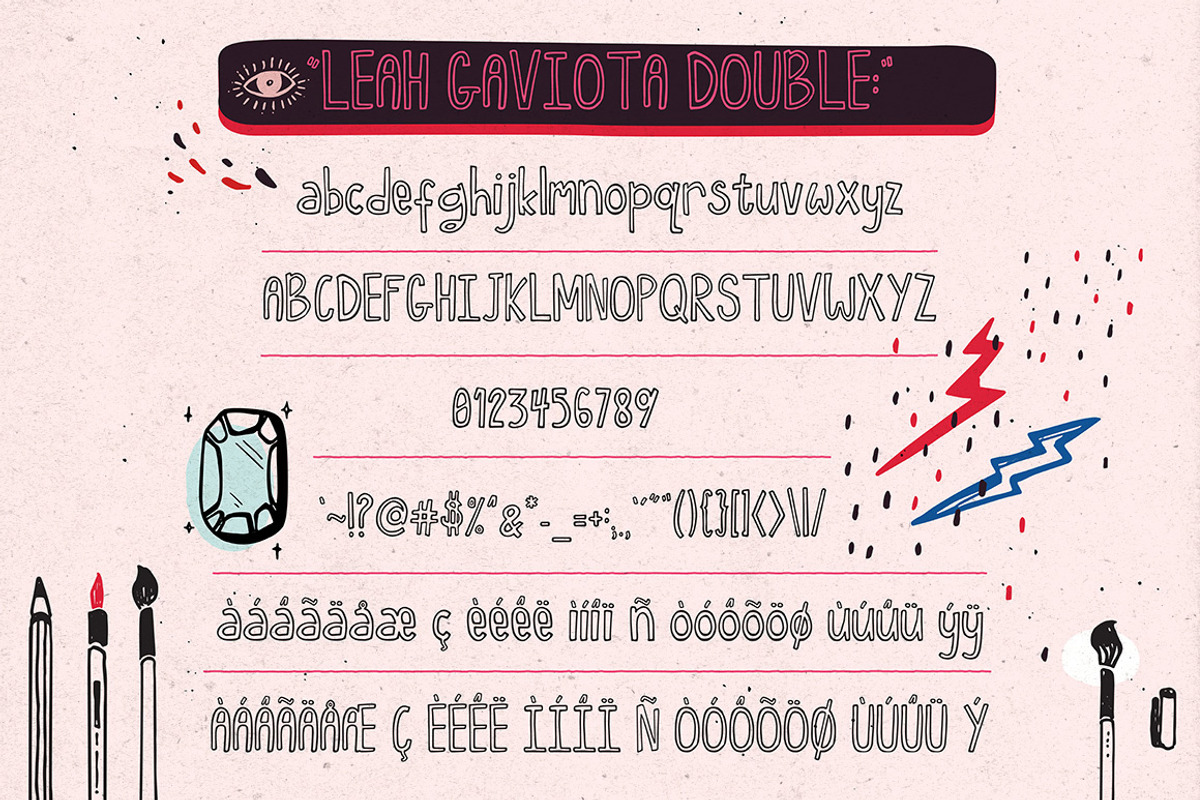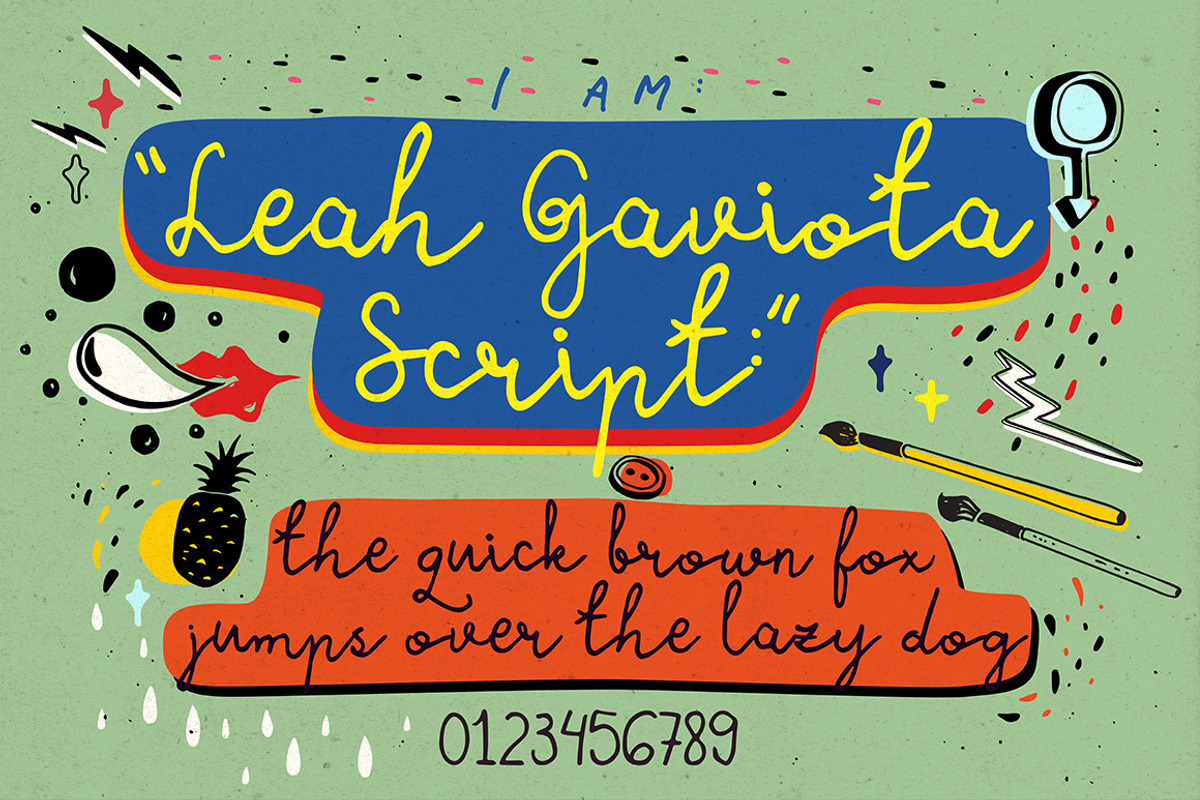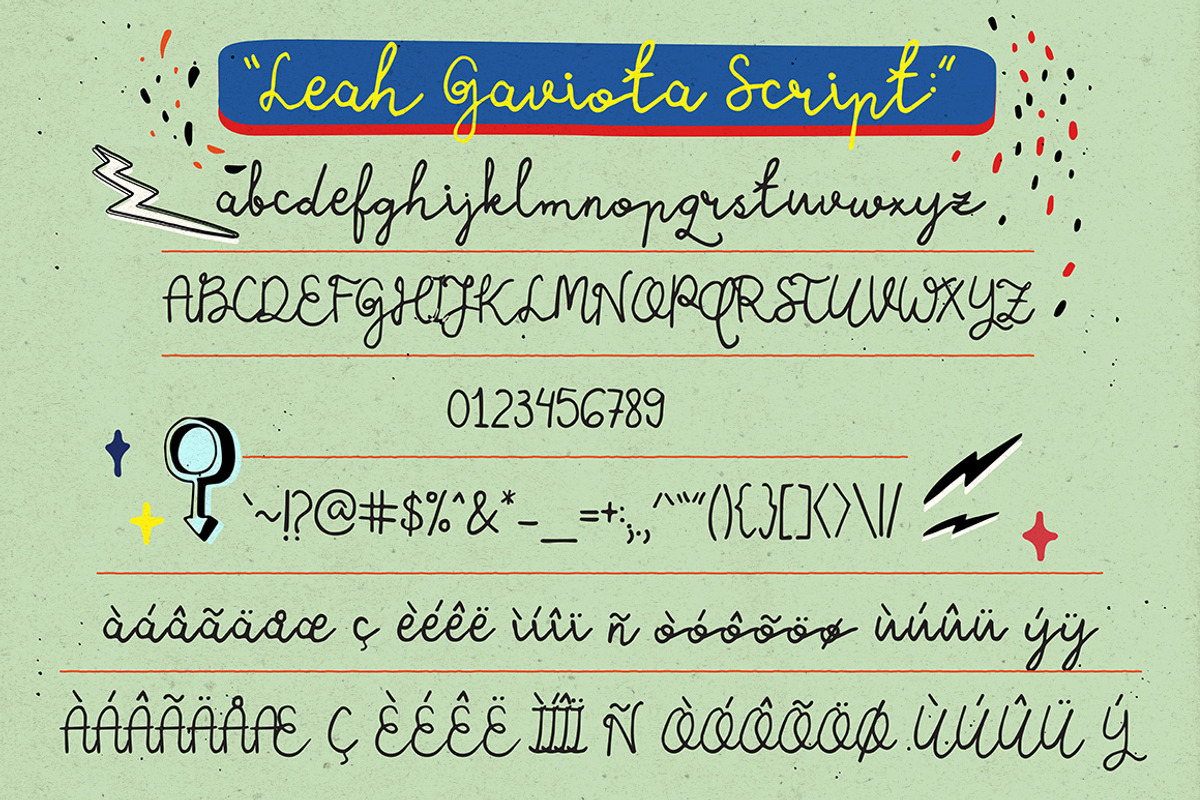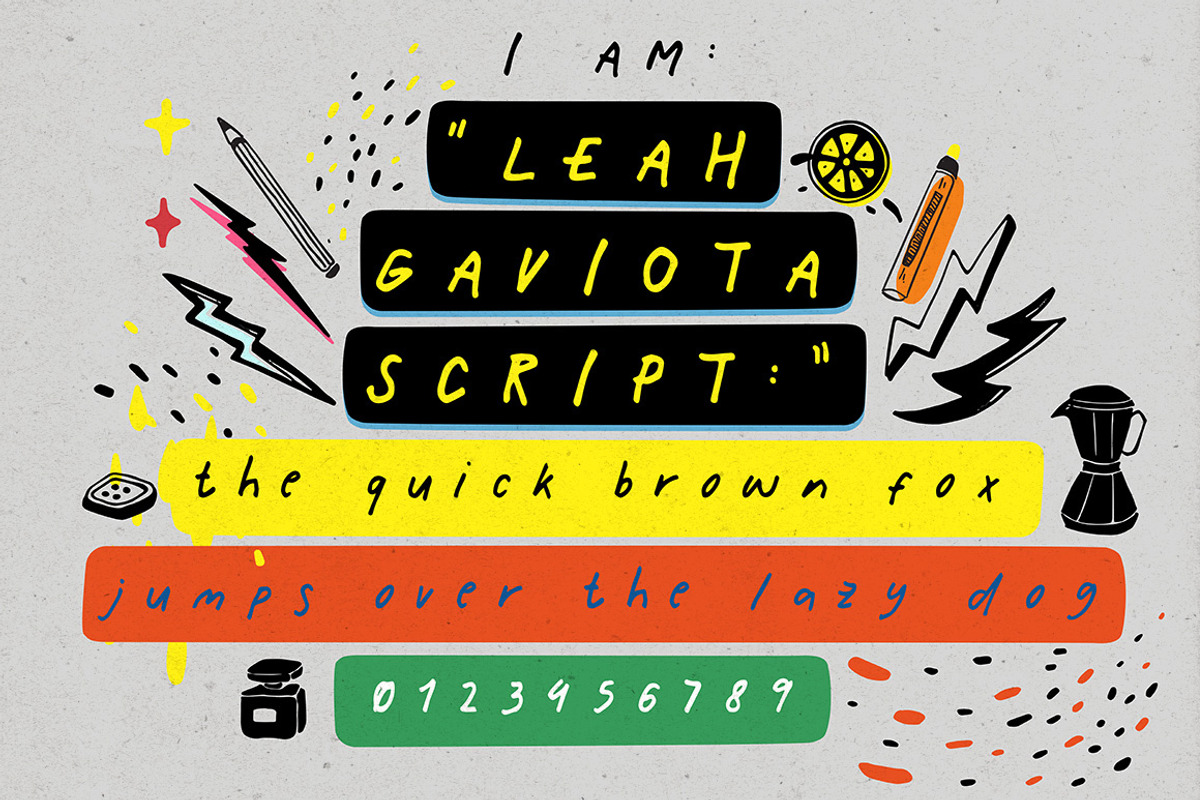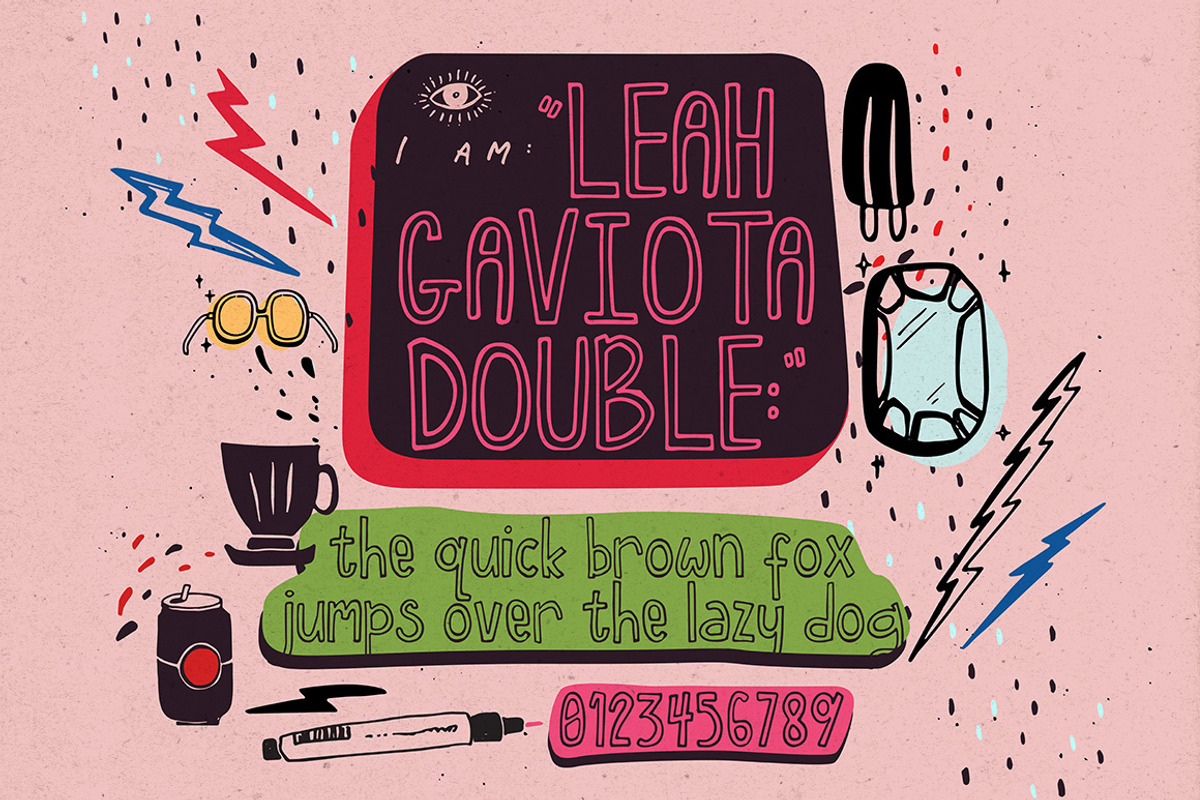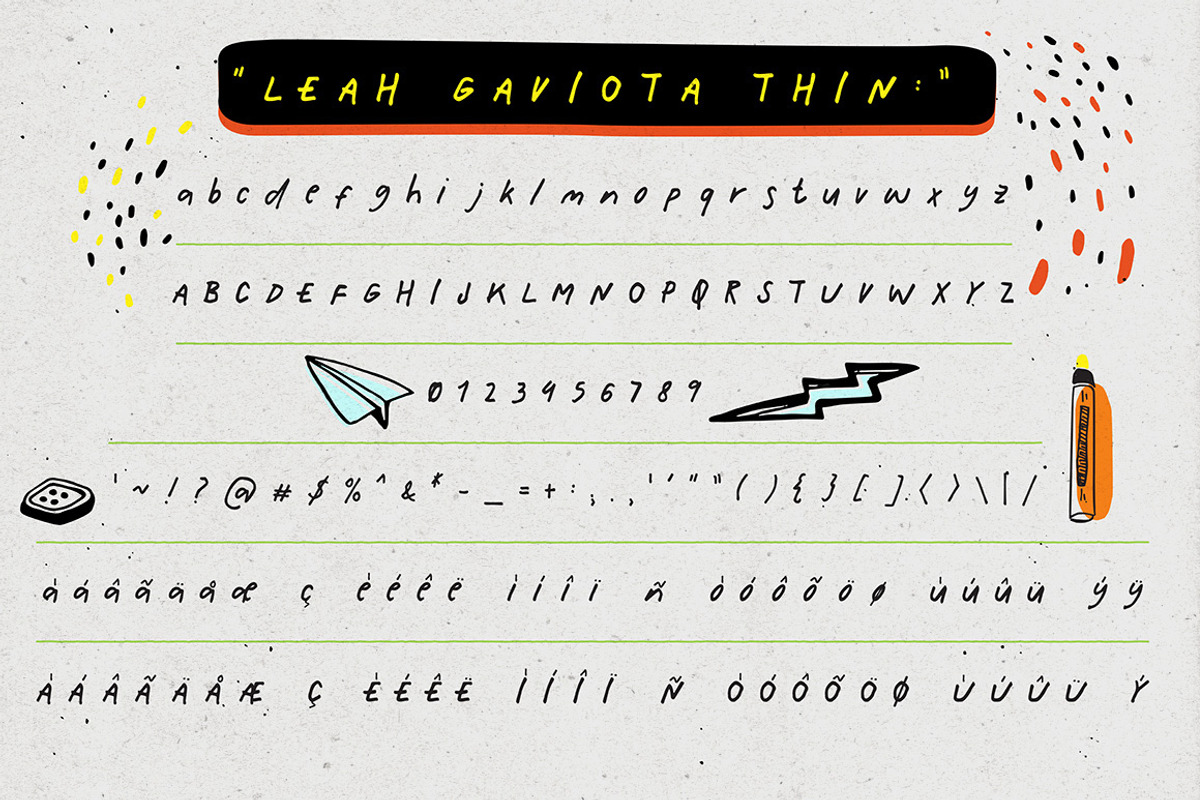
Leah Gaviota Script
Leah Gaviota is a mix of multiple type of font: script, bold, outline, serif & sans-serif, that you can use to create a casual, artisan work.
With its 6 different look, Leah Gaviota family is best for your signature, greeting card title, badge and sticker, logo and return address, web design & text, some cover design and so forth, you decide!
Leah Gaviota comes with accented glyphs for international language (check preview images to see which glyphs are included). And to make your artwork even cooler, all those mini illustrations in the preview images are included! There are 100+ icons you can mix & match to your design.
Leah Gaviota Features:
In the Family: Bold, Double, Thin, Script, Decorative, & Outline
Natural Pen Stroke
Hand Drawn Font
Accented Glyphs
There are some hand-made words. Those Are Not Fonts, as they’re just part of the bonus icons.